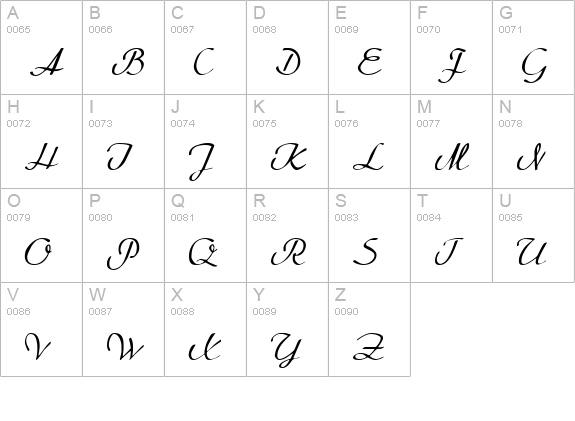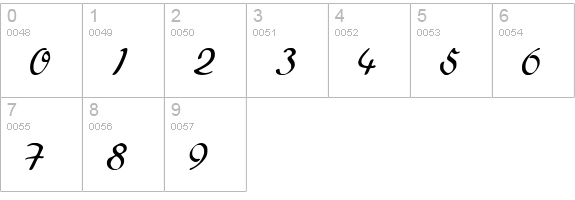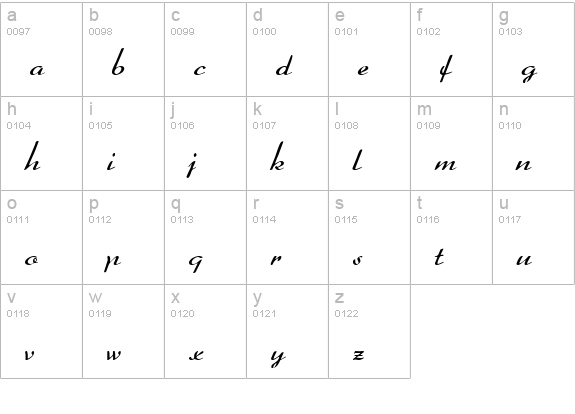
Hellenic Normal Font Details
Hellenic Normal is the standard, neutral variant in the Hellenic typeface family \xE2\x80\x94 well suited to general body text, paragraphs, and standard typographic work.
Hellenic Normal is a timeless font that exudes elegance and sophistication. With its clean lines and classic design, this font is perfect for a wide range of projects, from formal invitations to professional presentations. The Hellenic Normal font is meticulously crafted to capture the essence of ancient Greek typography, paying homage to the rich cultural heritage of the Hellenic civilization. Its graceful curves and balanced proportions make it a versatile choice for both digital and print media. What sets Hellenic Normal apart from other fonts is its availability. This font is completely free for personal and commercial use, making it accessible to designers and enthusiasts alike. Whether you're a student working on a school project or a professional designer creating a corporate brochure, Hellenic Normal is freely available to download at FontsMarket.com. Download Hellenic Normal today and add a touch of sophistication to your projects. Its timeless beauty and free availability make it a must-have font for anyone seeking to elevate their typography game.